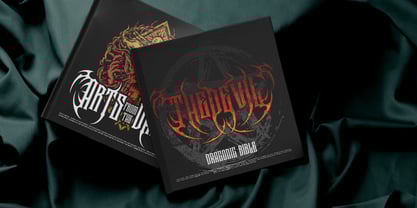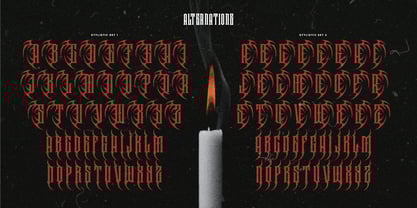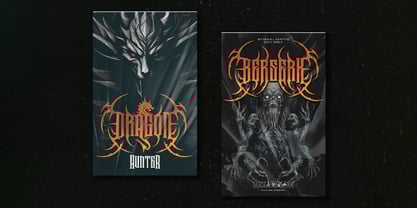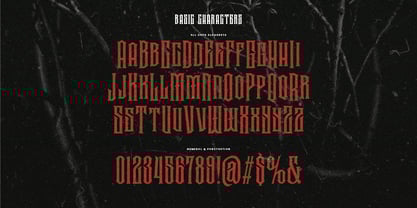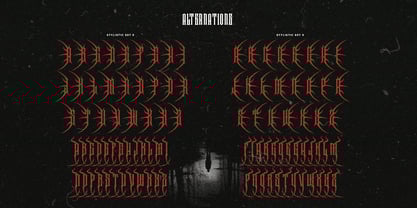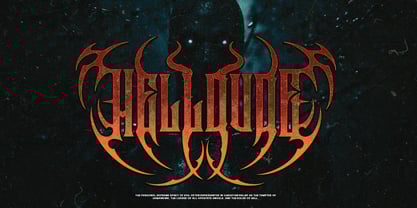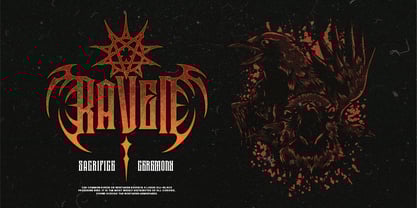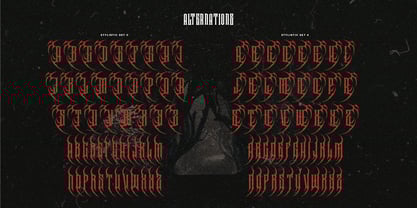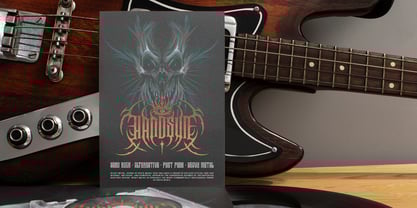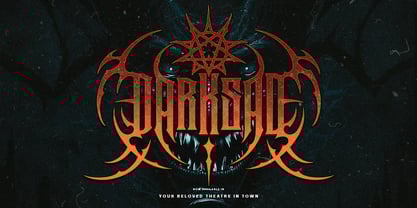
The Bruno back Font Family was designed by Alit Suarnegara and published by Alit Design. Bruno back contains 1 styles. More about this family
Bruno Back Typeface
Unleash the Power of Darkness
Bruno Back Typeface is the ultimate fusion of tradition and modernity, crafted for those who crave a fierce and adventurous design. Inspired by the boldness of blackletter aesthetics and reimagined with a contemporary edge, this typeface breathes life into dark metal themes while staying versatile enough for movie titles, gaming adventures, or anything that demands raw intensity.
Features at a Glance:
• 936 Characters: A comprehensive character set to meet all your creative needs.
• Alternatives: Multiple alternative glyphs to add variety and personality to your designs.
• Ligatures: Elegant and unique ligatures for seamless and sophisticated typography.
• Swashes: Decorative swashes to elevate your designs with flair and drama.
• Multilingual Support: Fully equipped to handle a wide range of languages, expanding your global reach.
Whether you're crafting the logo of a fierce gaming title, designing the cover of an epic adventure movie, or giving life to any project that thrives on intensity, Bruno Back Typeface is your go-to companion. Its modernized blackletter design ensures every character tells a story of boldness and power.
Embrace the Dark. Conquer the Bold.
Let Bruno Back Typeface redefine your creative horizons.